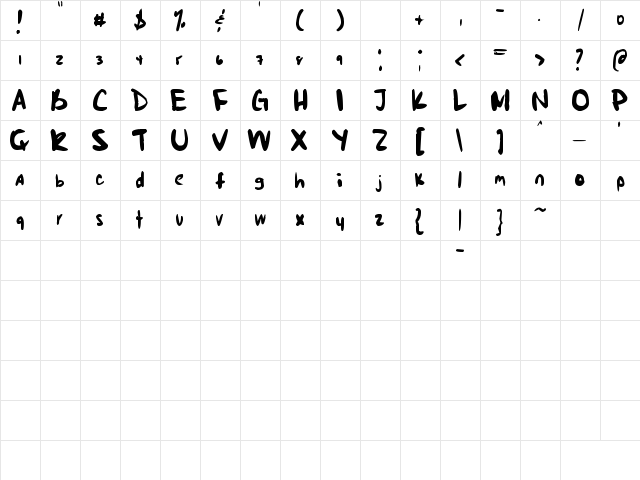
Markie's Fault Regular
Design Context for Markie's Fault Typeface
Markie's Fault is a composed and adaptable typeface that performs quietly and consistently across a wide range of design contexts.